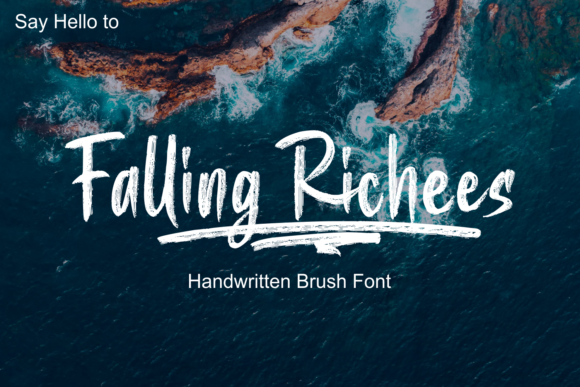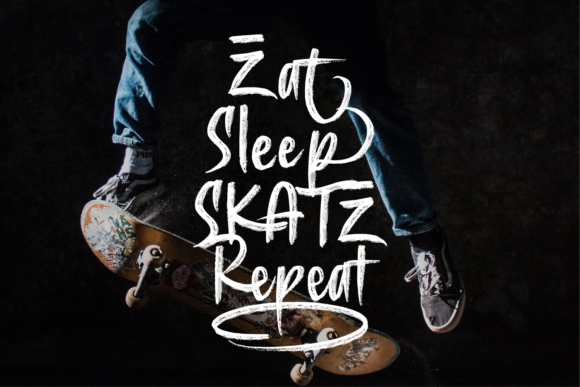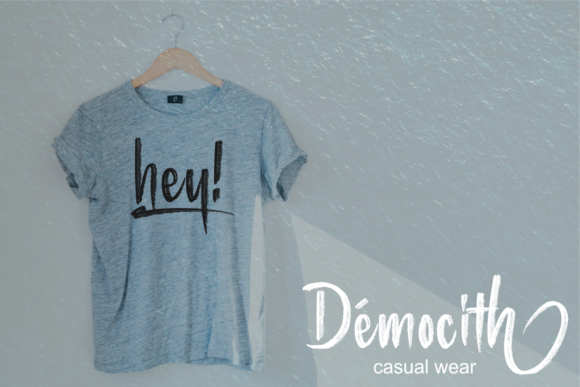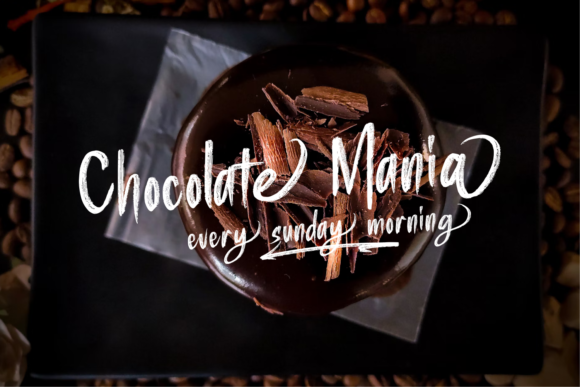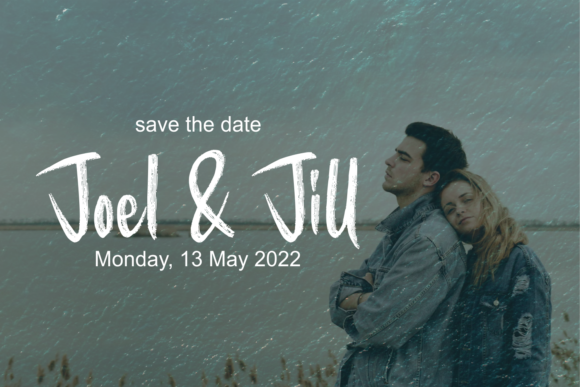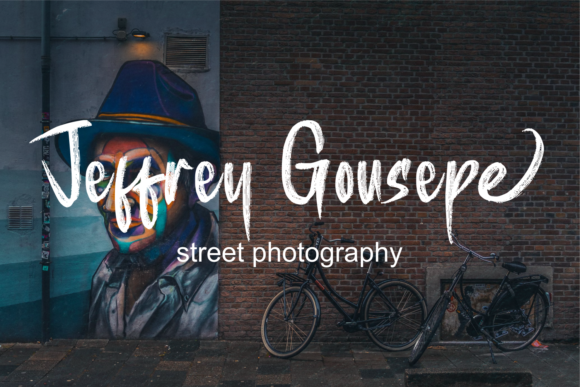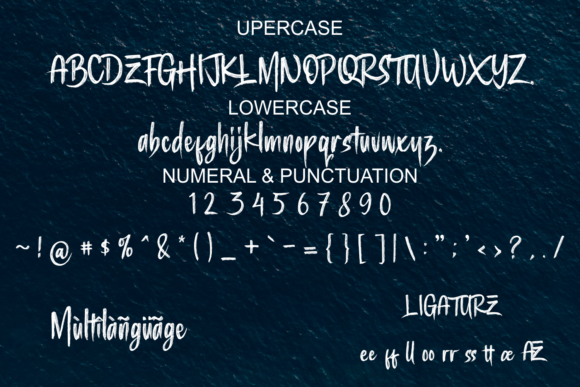
Falling Richees Font
About Falling Richees Font
Falling Richees is a handwritten script with authentic dry brush imperfections. It has a final letter combination to get the look you aspire to. This font is PUA encoded which means you can access all glyphs and swashes with ease!